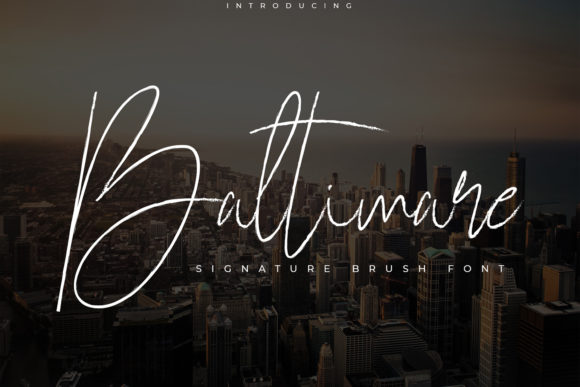
Step into the world of Baltimare, a script typeface that embodies elegance and sophistication. Jadatype, the creative minds behind this masterpiece, have meticulously crafted each letter to flow effortlessly, resembling the fine strokes of a skilled calligrapher. With its alluring curves and graceful lines, Baltimare is a feast for the eyes, ready to elevate your designs to new heights.
Journey through a world of endless possibilities with Baltimare. Its alluring charm is perfectly suited for modern apps, beckoning users with its inviting aesthetics. Envision your app interface adorned with Baltimare's graceful characters, guiding users through an intuitive and visually stunning experience. Let Baltimare be the cornerstone of your app's visual identity, creating a lasting impression that sets you apart from the ordinary.
Baltimare's versatility extends beyond the realm of apps. Its timeless beauty lends itself effortlessly to a myriad of creative endeavors. Unleash your imagination and explore the boundless opportunities that await. Craft breathtaking logos that exude professionalism and elegance, leaving an indelible mark on your audience's minds. Design eye-catching posters and flyers that capture attention at first glance, ensuring your message shines through the clutter. Transform ordinary invitations into exquisite works of art, adding a touch of personal flair to life's special moments.
But Baltimare's allure is not confined to the digital realm. Its tangible presence brings a touch of sophistication to the physical world as well. Impress clients with stunning business cards that speak volumes about your attention to detail. Create captivating brochures and reports that captivate readers and leave a lasting impression. Elevate your brand identity with custom-designed letterheads that exude professionalism and leave a lasting impression.
With Baltimare, you'll embark on a creative journey filled with endless possibilities. Its remarkable charm will captivate your audience, leaving them enticed and eager for more. Let Baltimare be your muse, igniting your imagination and transforming your designs into masterpieces. Embrace the beauty of Baltimare and unlock the true potential of your creativity.